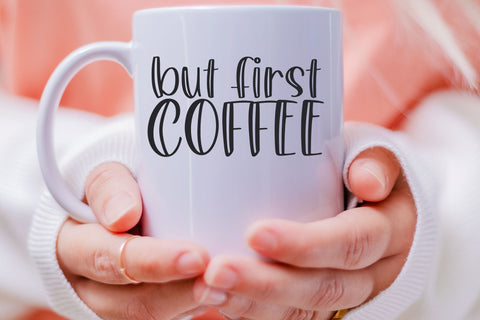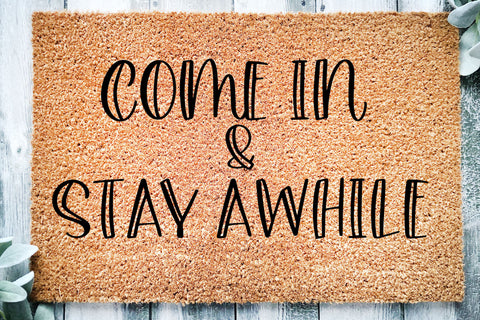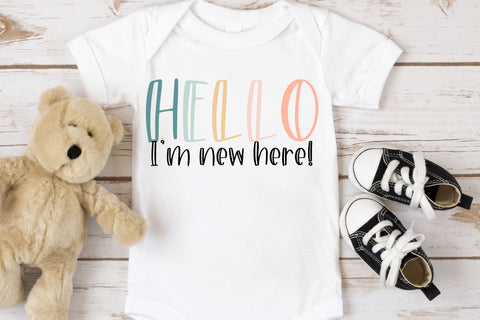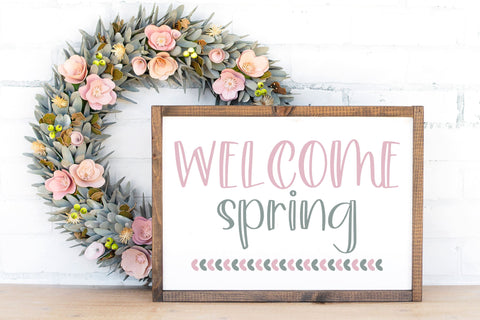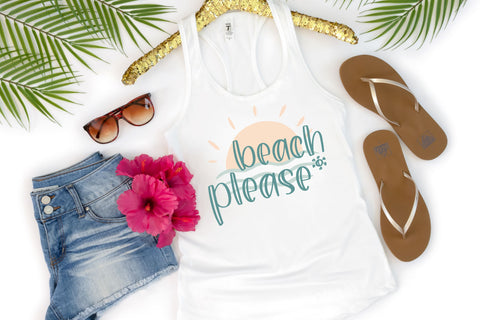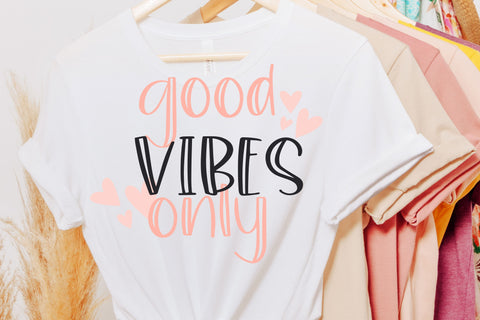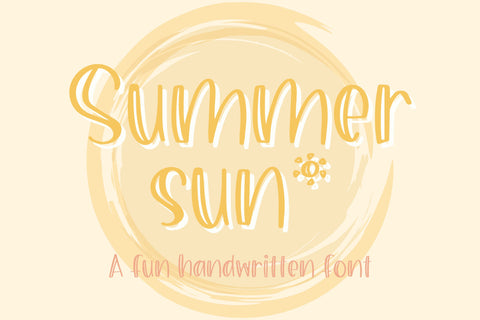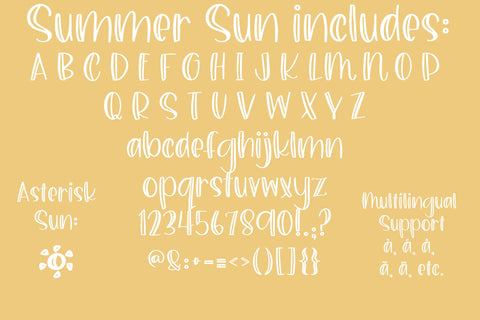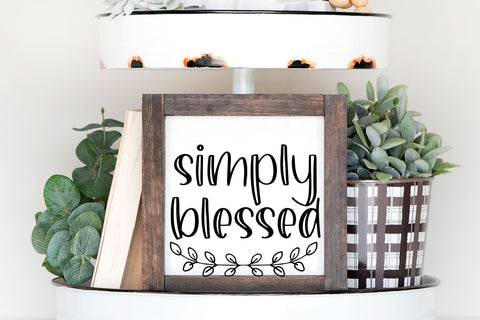
Summer Sun, Cute Handwritten Font for Cricut, Summer Handwriting
Introducing Summer Sun Handwritten Font for Cricut - a charming and cute addition to your creative projects! With its playful and fun handwriting style, it adds a touch of whimsy and personality to any project. Whether you're creating cards, scrapbooking, or working on SVG files, this font works perfectly with Cricut, Goodnotes, Procreate, & more. Get ready to impress with our amazing Cricut font collection and unlock endless possibilities for your artistic endeavors!